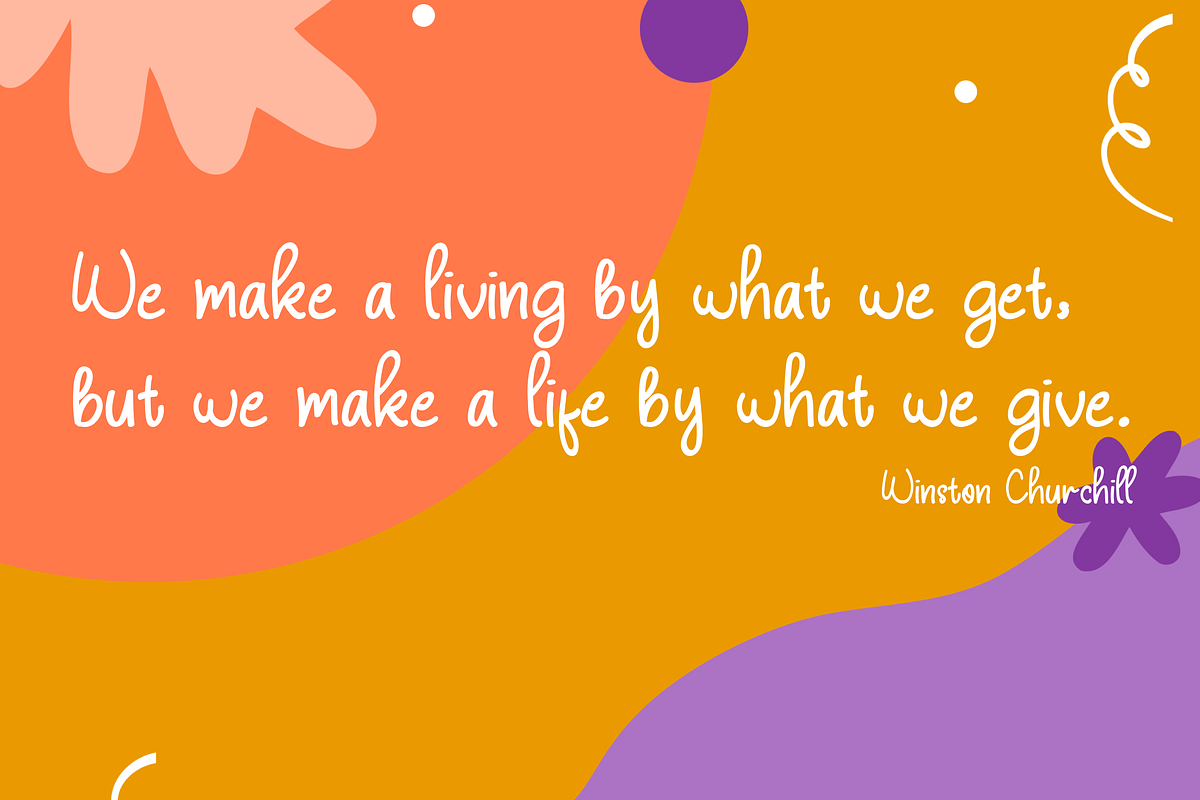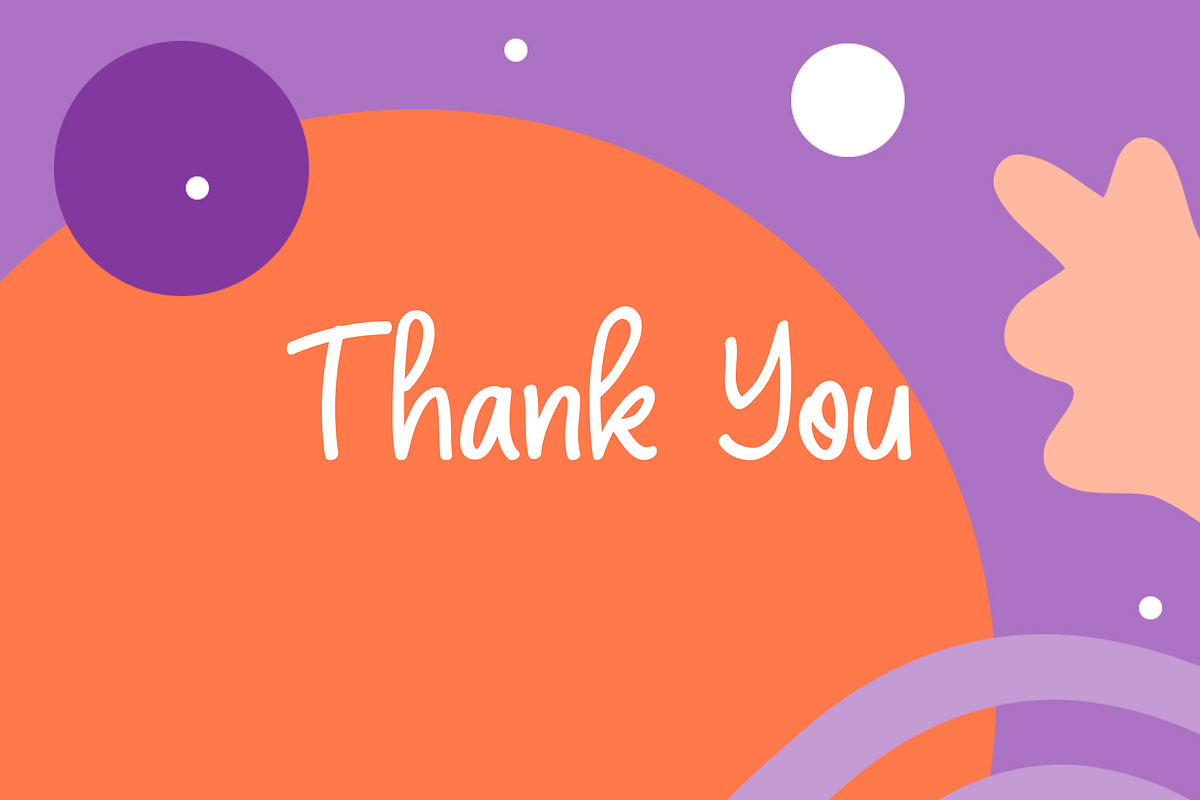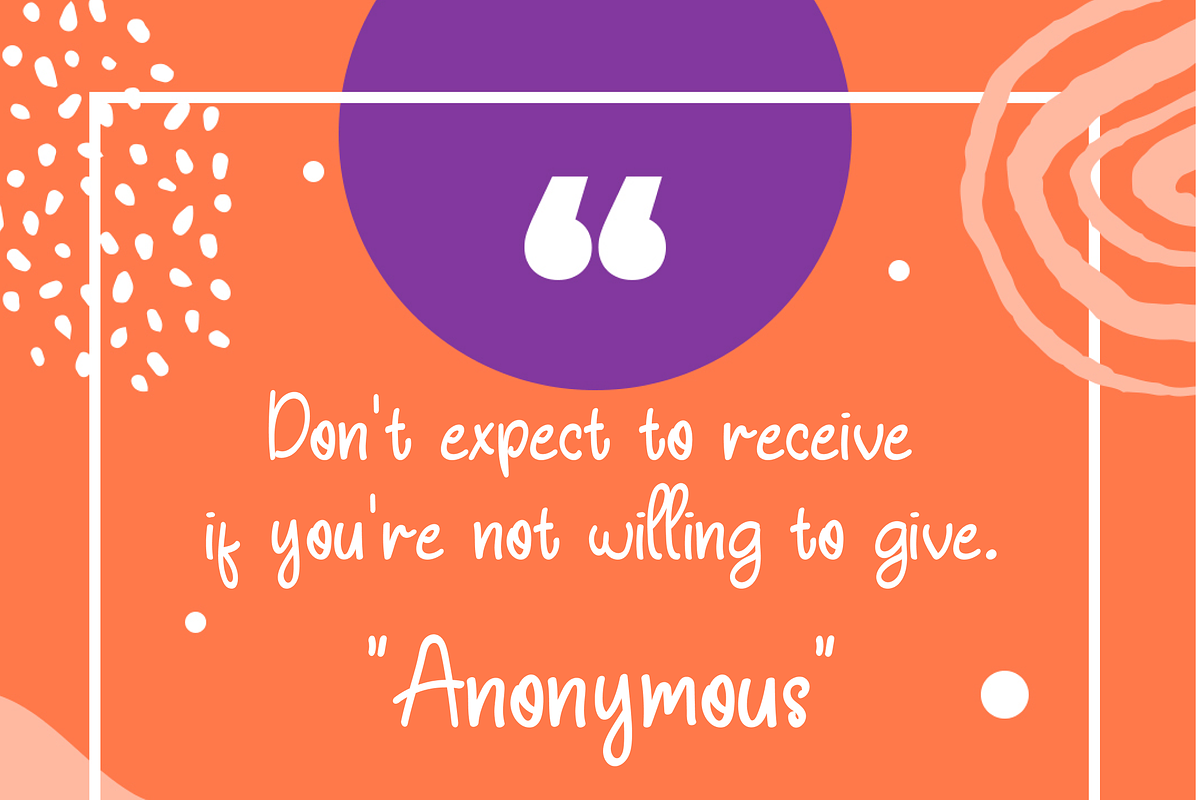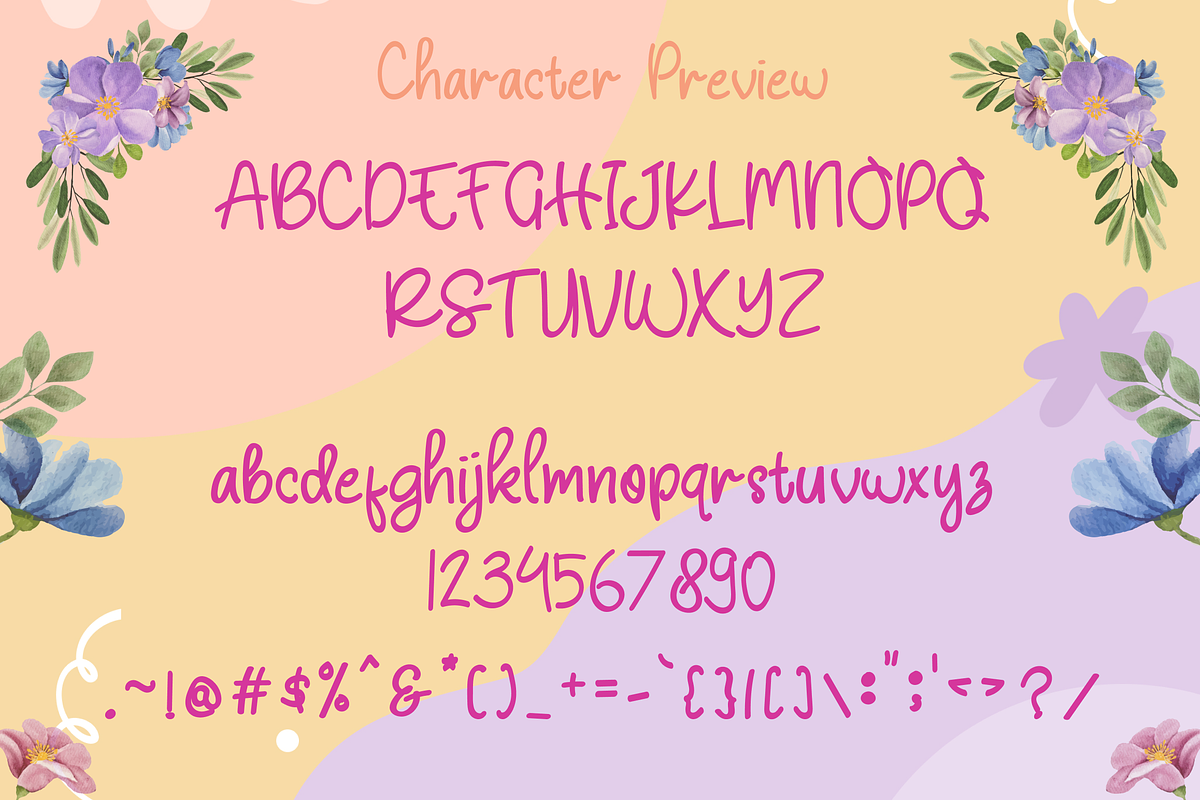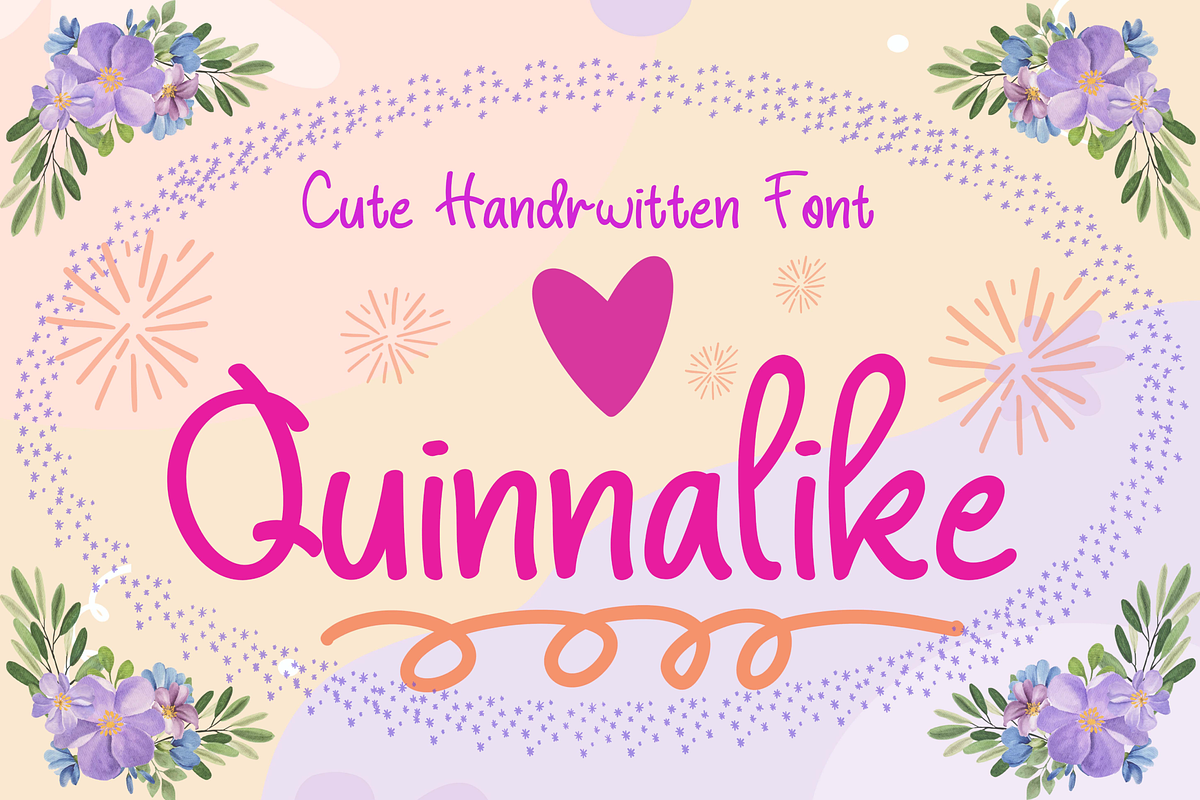
Quinnalike Handwritten Font
Quinnalike is a casual and adaptable handwritten font. Whatever the topic, this font will be a wonderful asset to your font library, as it has the potential to enhance any creation.